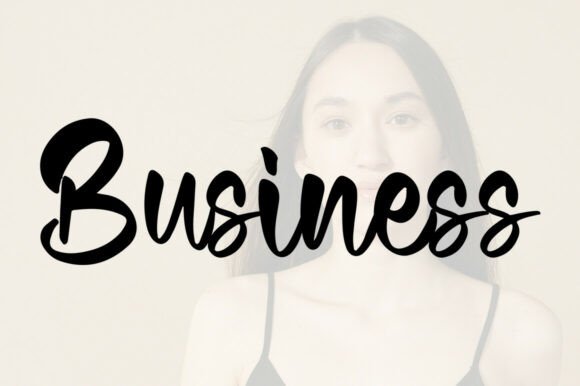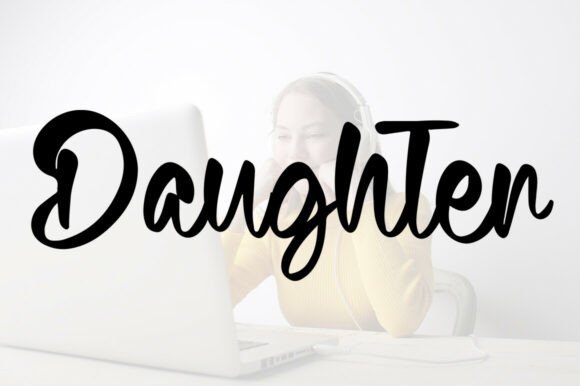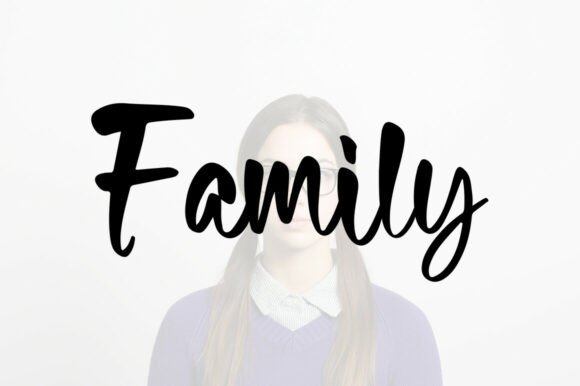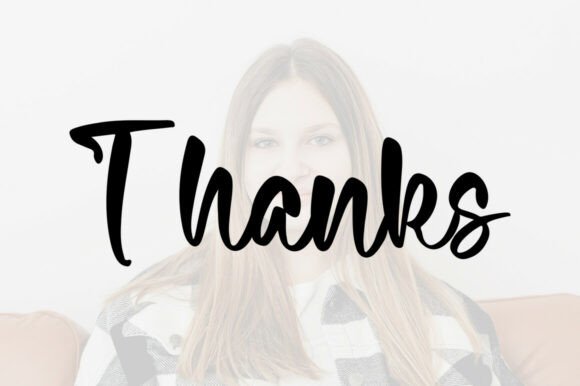
The Elegance of Dignity Font: A Designer’s New Best Friend
I still remember the time I was working on a wedding invitation project, and my client asked for a font that exuded elegance and sophistication. I scoured the internet, tried out countless fonts, but nothing seemed to fit the bill. That was until I stumbled upon Dignity Font. ✨ It was love at first sight! The stylish and incredibly elegant handwritten font instantly elevated my design, and my client was thrilled. In this article, I’ll share my experience with Dignity Font, its features, and how to make the most of it in your designs.
An Honest Review of Dignity Font
- ✨ Elegant and sophisticated handwritten style
- ✅ Perfect for wedding invitations, thank you cards, and greeting cards
- ✅ Highly versatile and can be used for logos, business cards, and more
- ✅ Easy to read and understand, even in small sizes
While Dignity Font is an excellent choice for many designs, there are a few things to keep in mind: ⚠️ It may not be the best fit for very formal or corporate designs, as it has a distinctly elegant and personal feel. 🤔 Additionally, some users may find the font a bit too ornate for certain applications.
- Experiment with OpenType features, such as glyphs and stylistic alternates, to add more personality to your design
- Take advantage of OpenType features, such as ligatures and stylistic sets, to add more depth to your design
The Story Behind Dignity Font
Dignity Font was created with the intention of providing a elegant and sophisticated handwritten font for designers. The font’s creator wanted to craft a font that would add a touch of class to any design, while still being easy to read and understand.
| Font Name | Dignity Font |
| Author | Daily Design |
Q: What type of designs is Dignity Font best suited for?
A: Dignity Font is perfect for wedding invitations, thank you cards, quotes, greeting cards, logos, business cards, and any other design that requires a handwritten touch.
Q: Is Dignity Font easy to read?
A: Yes, Dignity Font is designed to be easy to read and understand, even in small sizes.